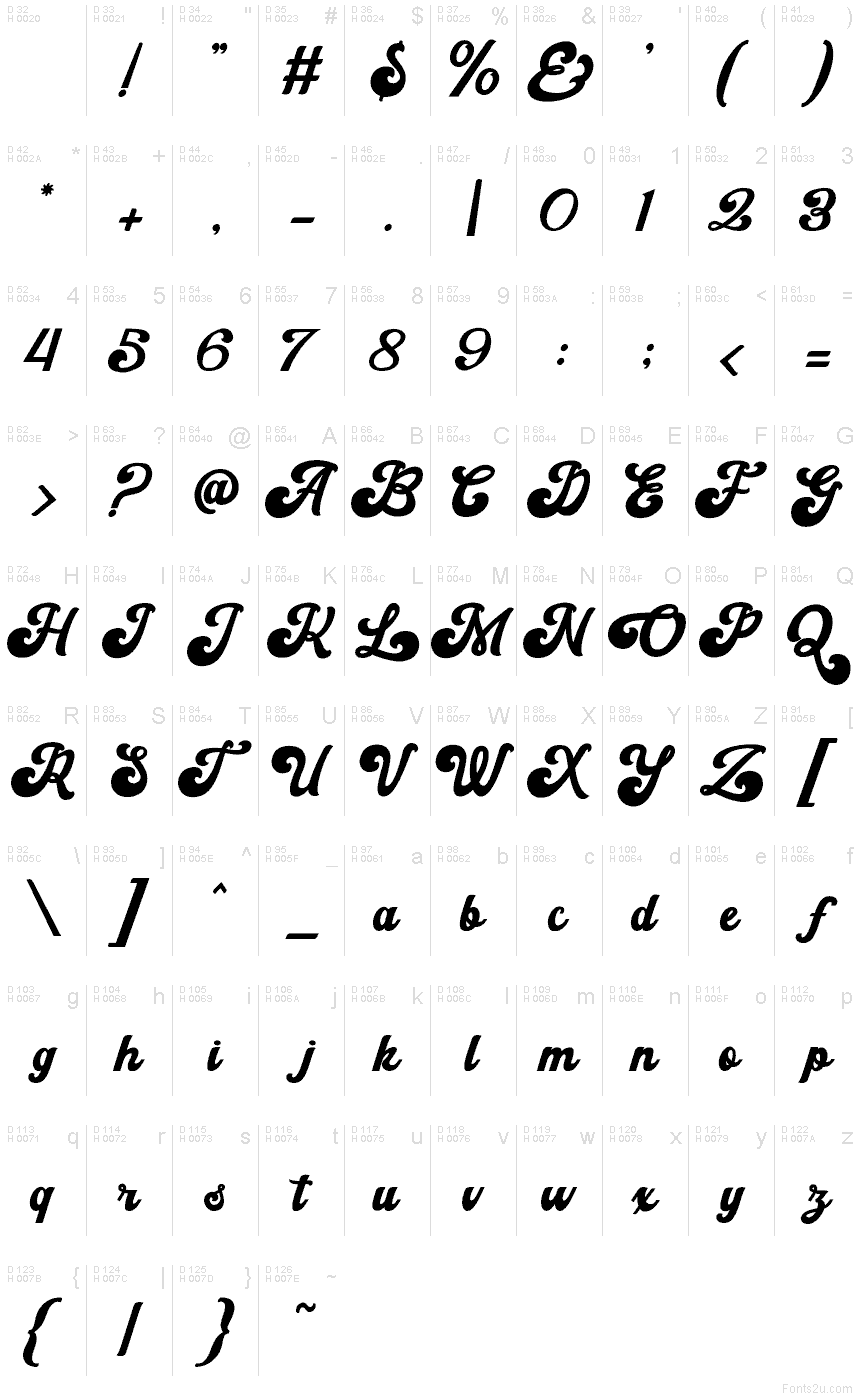
Huron
Huron font by PutraCetol Studio is a retro-inspired script style typeface combining bold brush letters with decorative elements. The font has an expressive, nostalgic feel and a stunning signature-like quality inspired by the rich retro era.